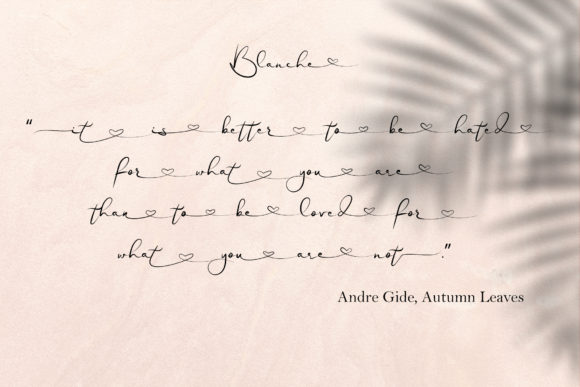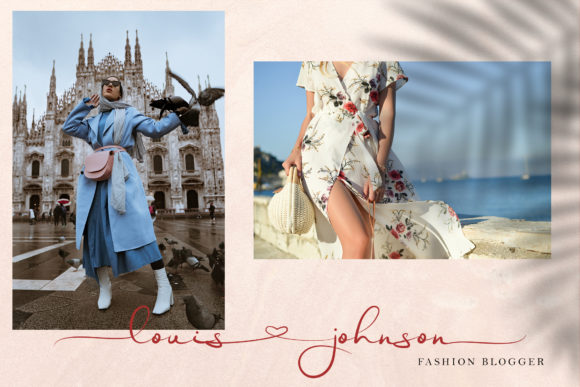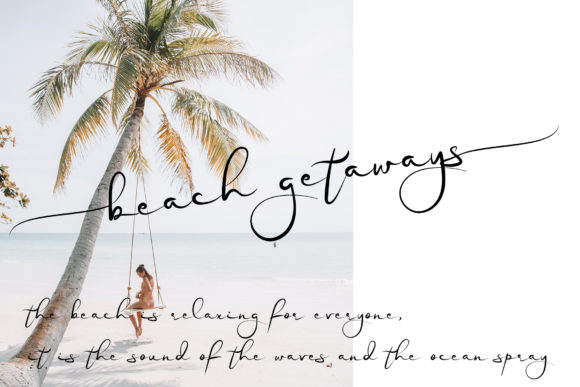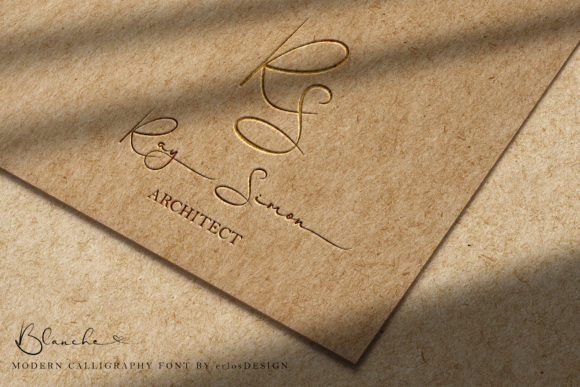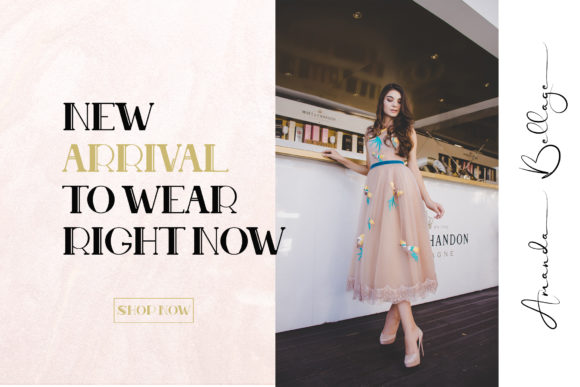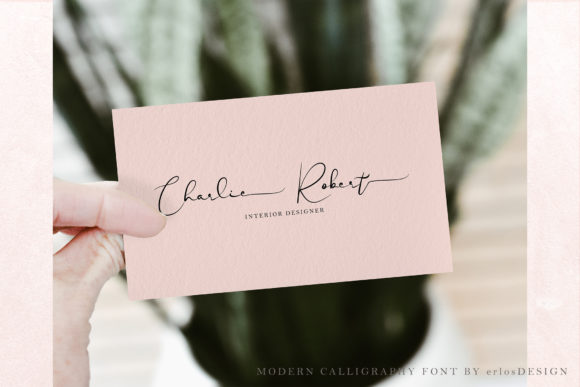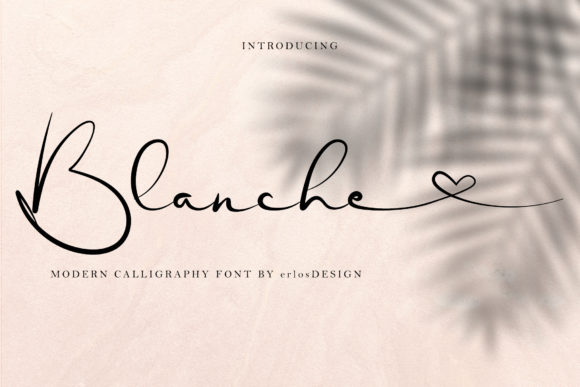
Discover the Elegance of Blanche Font: Elevate Your Designs with Delicate Handwritten Style
In the world of typography, fonts play a crucial role in bringing designs to life. Among the numerous fonts available, Blanche Font stands out for its delicate, elegant, and flowing handwritten style. This beautiful font is perfect for designers and crafters looking to add a touch of sophistication and uniqueness to their projects. In this article, we’ll explore the features and benefits of Blanche Font, and how it can elevate your designs to new heights.
The Characteristics of Blanche Font
Blanche Font is a stunning handwritten font that boasts beautiful and well-balanced characters. Its varying baseline, smooth lines, and gorgeous glyphs make it a versatile font that can match a wide pool of designs. Whether you’re working on a branding project, a wedding invitation, or a digital platform, Blanche Font is sure to make a lasting impression.
One of the standout features of Blanche Font is its elegant and flowing style. The font’s delicate lines and curves create a sense of movement and fluidity, making it perfect for designs that require a touch of sophistication. Additionally, Blanche Font features stunning alternates, which allow you to add variety and creativity to your text.
Why Choose Blanche Font?
So, why should you choose Blanche Font for your next project? Here are just a few reasons:
- Unique and Creative:** Blanche Font offers a unique and creative way to express yourself through typography. Its elegant and flowing style sets it apart from other fonts, making it perfect for designers and crafters who want to stand out.
- Versatile:** Blanche Font is incredibly versatile and can be used in a wide range of designs, from branding and advertising to wedding invitations and digital platforms.
- Easy to Read:** Despite its delicate style, Blanche Font is easy to read, making it perfect for body text and headings.
- High-Quality:** Blanche Font is a high-quality font that is designed to deliver exceptional results. Its smooth lines and gorgeous glyphs ensure that your text looks stunning in any design.
How to Use Blanche Font in Your Designs
Using Blanche Font in your designs is easy. Here are a few tips to get you started:
- Pair it with Other Fonts:** Blanche Font pairs well with other fonts, making it easy to create stunning typography combinations. Try pairing it with a bold font for a striking contrast.
- Use it for Headings and Titles:** Blanche Font is perfect for headings and titles, where its elegant and flowing style can really shine.
- Experiment with Alternates:** Blanche Font features stunning alternates, which allow you to add variety and creativity to your text. Experiment with different alternates to find the one that works best for your design.
| Font Name | Blanche Font |
| Author | erlosDESIGN |
Blanche Font is a beautiful and elegant handwritten font that is perfect for designers and crafters looking to add a touch of sophistication and uniqueness to their projects. Its delicate lines, smooth curves, and gorgeous glyphs make it a versatile font that can match a wide pool of designs. With its ease of use, high-quality design, and stunning alternates, Blanche Font is sure to elevate your designs to new heights. So why not give it a try and see how it can bring your designs to life?
Whether you’re a seasoned designer or a crafty DIY enthusiast, Blanche Font is a must-have addition to your typography collection. So go ahead, get creative, and discover the elegance of Blanche Font for yourself.